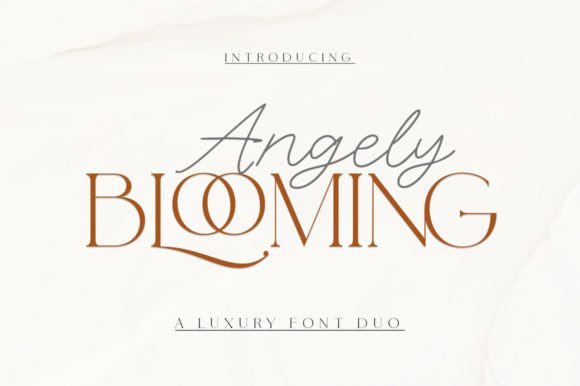
Unlock the Magic of Angely Blooming Font
Have you ever stared at a blank page, struggling to find the perfect font to bring your creative vision to life? I know I have. That’s why I’m always on the lookout for game-changing resources like the Angely Blooming Font. This stunning duo of Script and Serif fonts is designed to make your designs pop, with intricate details and a touch of magic.
What sets Angely Blooming Font apart is its versatility and ease of use. With PUA encoding, you can access a wide range of glyphs and ligatures with just a few clicks. Whether you’re designing a wedding invitation, a book cover, or a t-shirt, this font is sure to add an extra layer of sophistication and style. For designers, Angely Blooming Font is a valuable tool that can help take your projects to the next level.
Angely Blooming Font Key Features
- Font Family: Angely Blooming Font is a unique, hand-drawn script font family with 6 styles.
- Character Set: The font family includes a wide range of characters, including uppercase and lowercase letters, numerals, punctuation, and special characters.
- Unique Characteristics: Angely Blooming Font features elegant, flowing lines and subtle imperfections, giving it a hand-crafted look and feel.
Designer Review: Angely Blooming Font
First impressions count, and the Angely Blooming Font certainly makes a statement. ✨ Its whimsical, hand-painted aesthetic is perfect for adding a touch of personality to brand identities, advertisements, or editorial content. The font’s versatility is also a major plus, as it can range from elegant and refined to playful and quirky, depending on the context.
Here are some of the font’s standout features:
- ✨ Beautiful, hand-painted feel that adds a unique touch to designs
- ✨ Highly versatile, suitable for a wide range of applications
- ✨ Supports multiple languages, making it a great choice for global brands
- ⚠️ May not be suitable for small text sizes, as the font’s intricate details can become difficult to read
- ⚠️ Limited availability in different font weights and styles may restrict its use in certain contexts
Overall, I’d give the Angely Blooming Font a solid 4 out of 5 stars. While it may have some limitations, its unique charm and versatility make it a great choice for designers looking to add a touch of personality to their projects.
Angely Blooming Font Practical Application Guide
3. Use the font’s unique features, such as its floral and whimsical design, to add visual interest to your design.
3. Use the font’s playful and feminine design to add a touch of elegance to your presentation or document.
The Angely Blooming Font is ideal for:
Baby shower invitations and decorations
Women’s fashion and lifestyle branding
Floral and garden-themed designs
Tips for Getting the Most Out of Angely Blooming Font
Use the font’s unique features to add texture and interest to your design.
Pair the Angely Blooming Font with other feminine and whimsical elements to create a cohesive look.
The recommended font size for optimal readability with Angely Blooming Font is between 14 and 24 points, depending on the application and the intended audience. At smaller font sizes, the text may become difficult to read due to the script nature of the font.